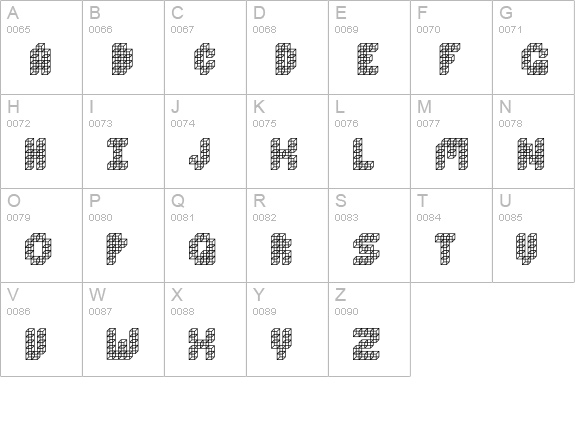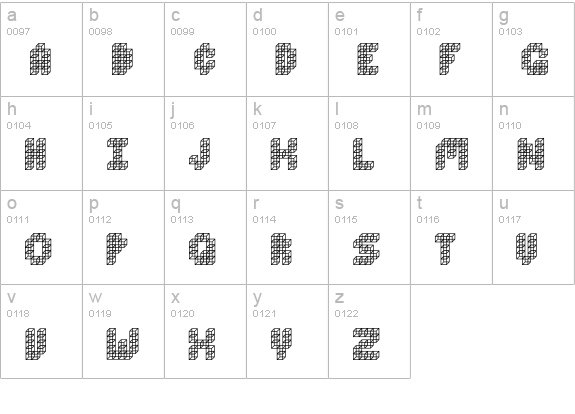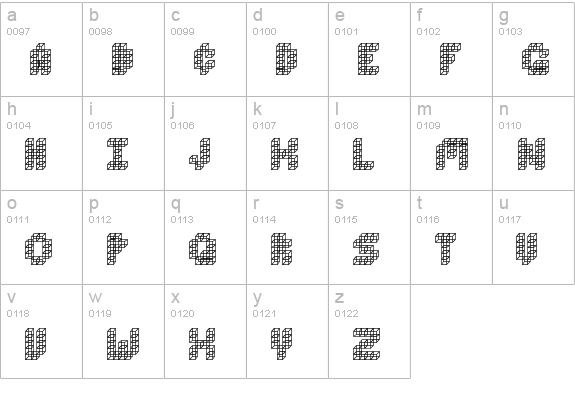
Cube Toss Font Details
Cube Toss font is a modern and playful typeface that will add a touch of creativity to your designs. With its geometric shapes and clean lines, this font is perfect for a variety of projects, from branding to web design. The unique design of Cube Toss font will make your text stand out and grab attention. And the best part? Cube Toss font is completely free to download at FontsMarket.com! You can easily access this versatile font and use it in your projects without any cost. Don't miss out on this fantastic opportunity to add a stylish and eye-catching font to your collection. Download Cube Toss font today and take your designs to the next level!